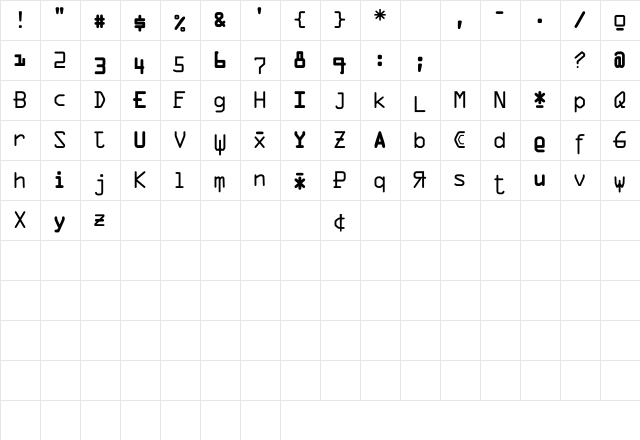
VTDigitDogAgog Regular
Design Context for VTDigitDogAgog Typeface
VTDigitDogAgog channels digital-age aesthetics through its sharp, structured letterforms — ideal for brands that want to signal innovation.
Pro Tip: Try VTDigitDogAgog with generous letter-spacing in UI labels and navigation — the geometric forms benefit from room to breathe.